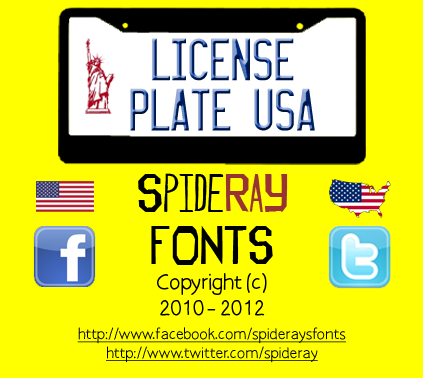
This font is based on the four North American Font Types based on curve construction/appearance, this latest version has the lowercase letters and numbers embossed like the actual USA License Plates. This is the actual typeface used in the Universal Music release of the Lady Gaga 2017 album Joanne and all associated media. For the fully kerned OTF embeddable commercial version of this font please visit my Etsy Store @ http://etsy.me/2eXGwL6 |